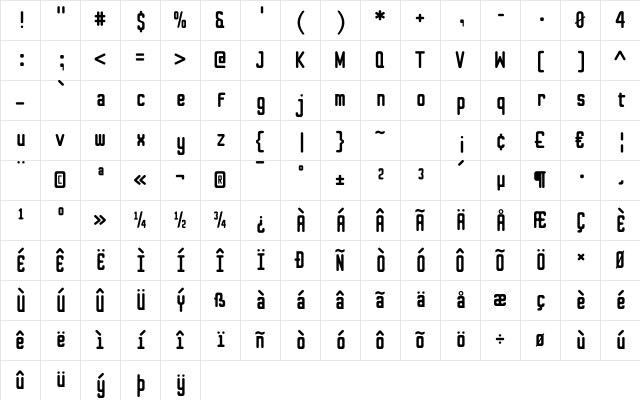
Complete SquareShooter Mono Regular glyph index. Displaying only characters natively supported by SquareShooter Mono Regular font.
SquareShooter Mono uses fixed-width spacing throughout, giving it the structured, systematic character associated with coding environments and technical documentation.